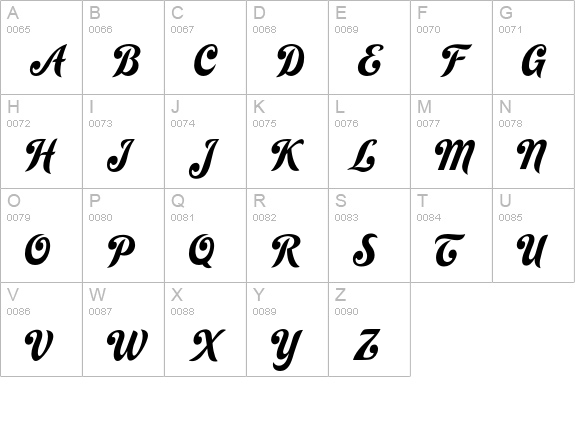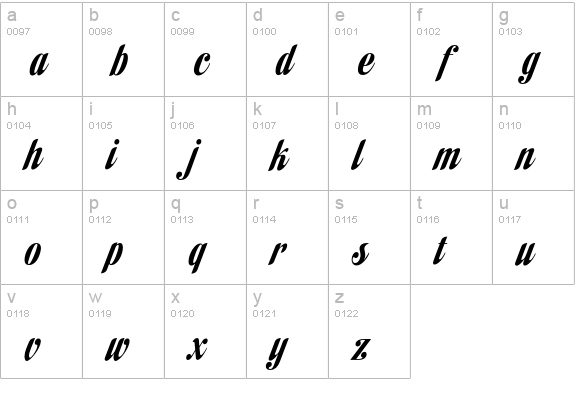
HabanoST Font Details
Introducing HabanoST, a stunning font that effortlessly combines elegance, sophistication, and modernity. This font is the epitome of timeless beauty, making it the perfect choice for a wide range of design projects. With its sleek and stylish letterforms, HabanoST exudes a sense of class and refinement. Each character is meticulously crafted to create a harmonious balance between curves and straight lines, resulting in a typeface that is both visually striking and easy to read. One of the most remarkable aspects of HabanoST is that it is available for free. Yes, you heard that right! This incredible font can be freely downloaded from FontsMarket.com, making it accessible to anyone who wants to add a touch of elegance to their designs. Whether you're working on a logo, branding materials, invitations, or any other design project, HabanoST is sure to make a lasting impression. Its versatility allows it to adapt to various styles and themes, making it a truly versatile font. The attention to detail in HabanoST is exceptional, with every character meticulously crafted to perfection. From the graceful curves of the lowercase letters to the bold and powerful presence of the uppercase, every aspect of this font has been carefully considered. If you're looking for a font that will elevate your design to new heights, look no further than HabanoST. With its timeless beauty, impeccable craftsmanship, and the fact that it is freely available to download at FontsMarket.com, this font is a must-have for any designer or creative professional. Don't miss out on the opportunity to add this stunning typeface to your collection and let it inspire your next masterpiece.